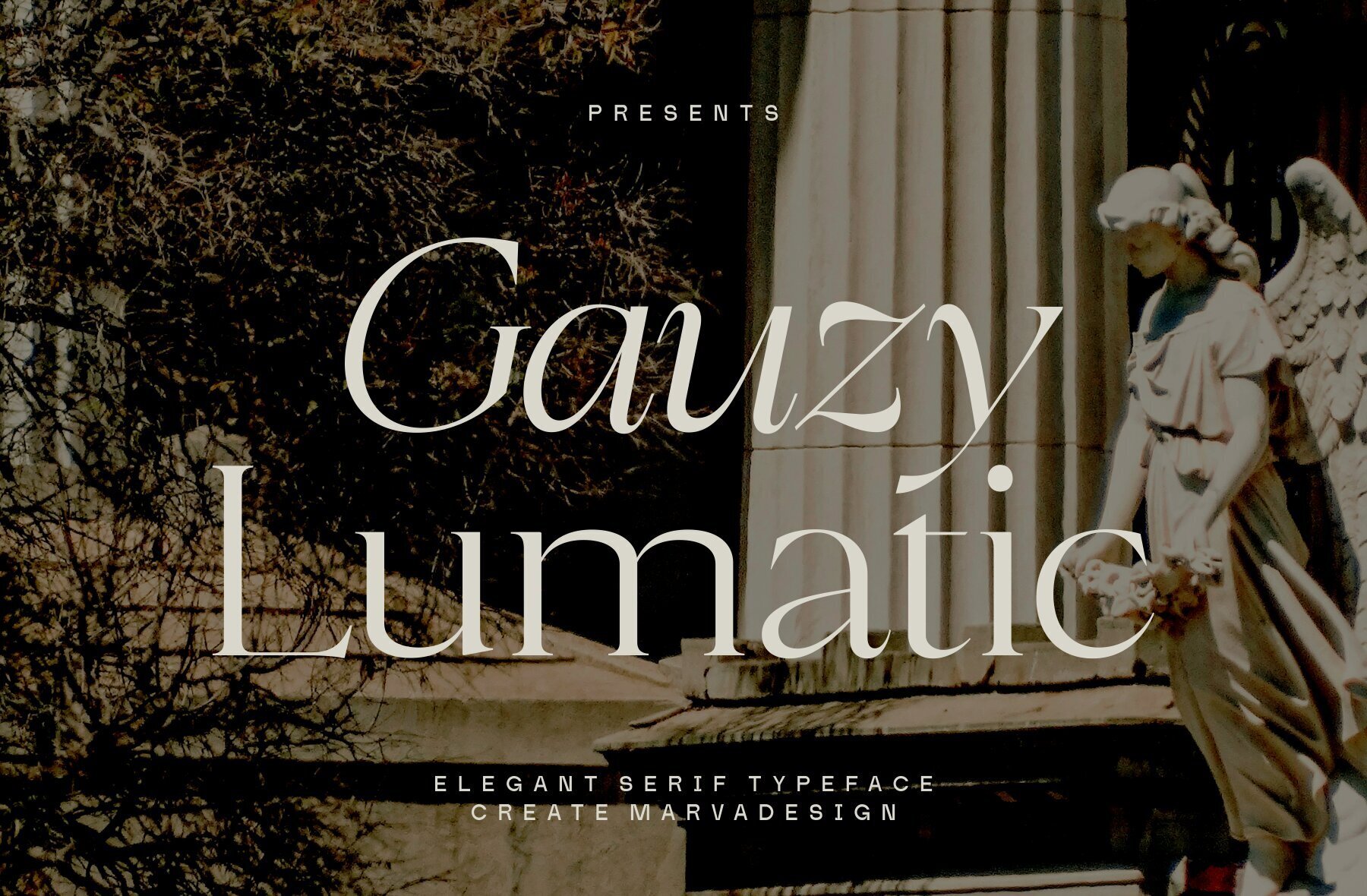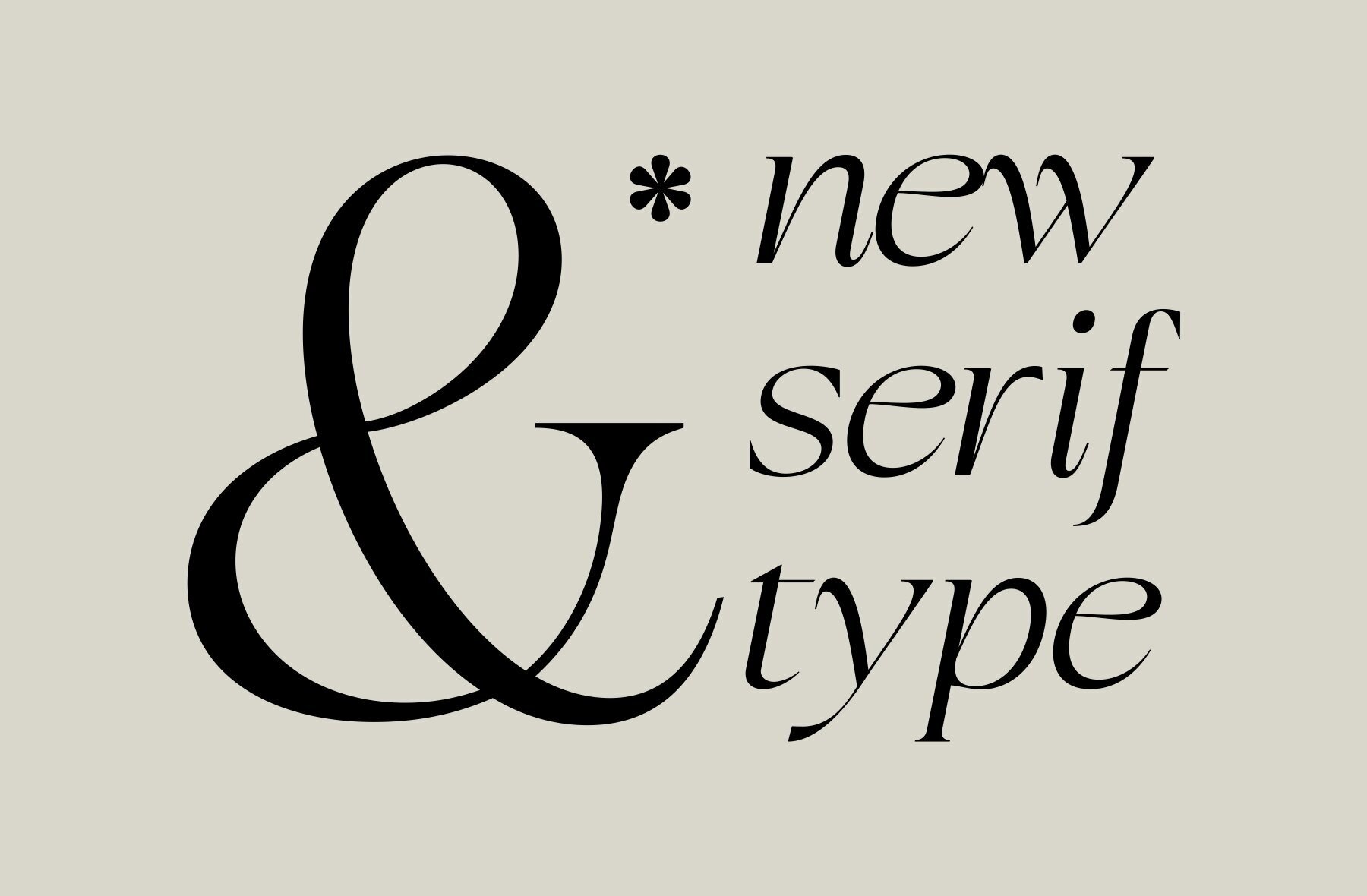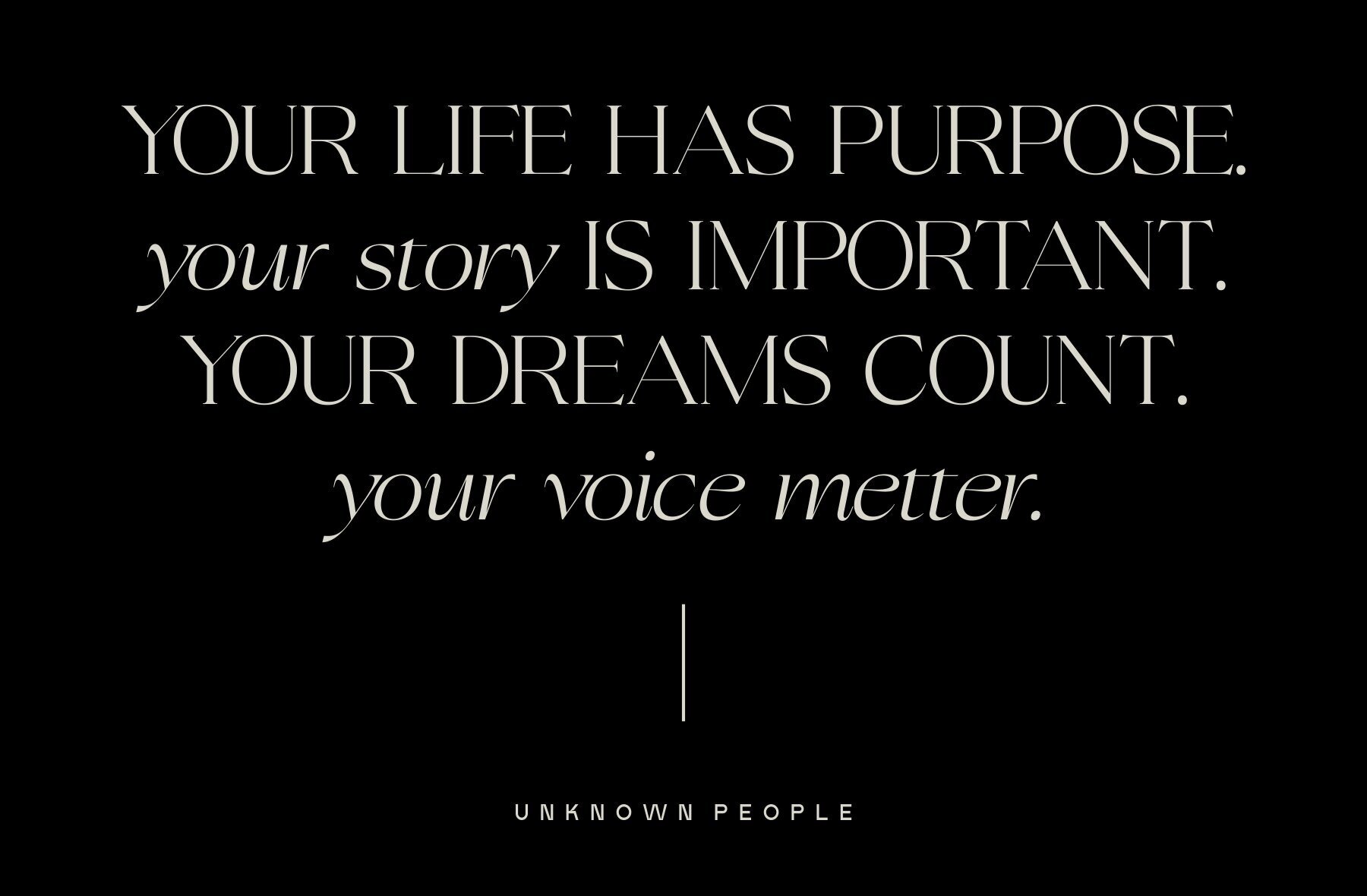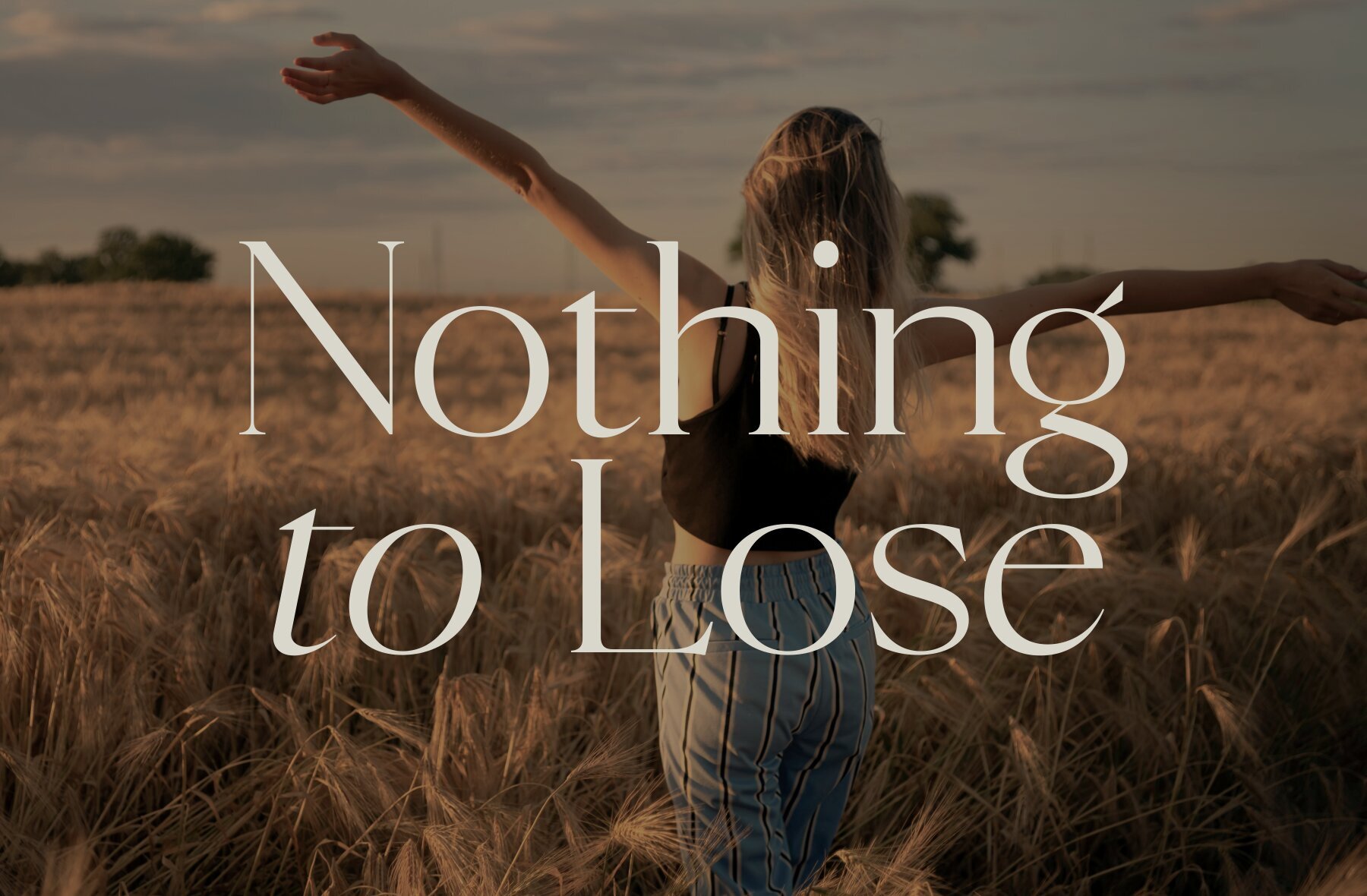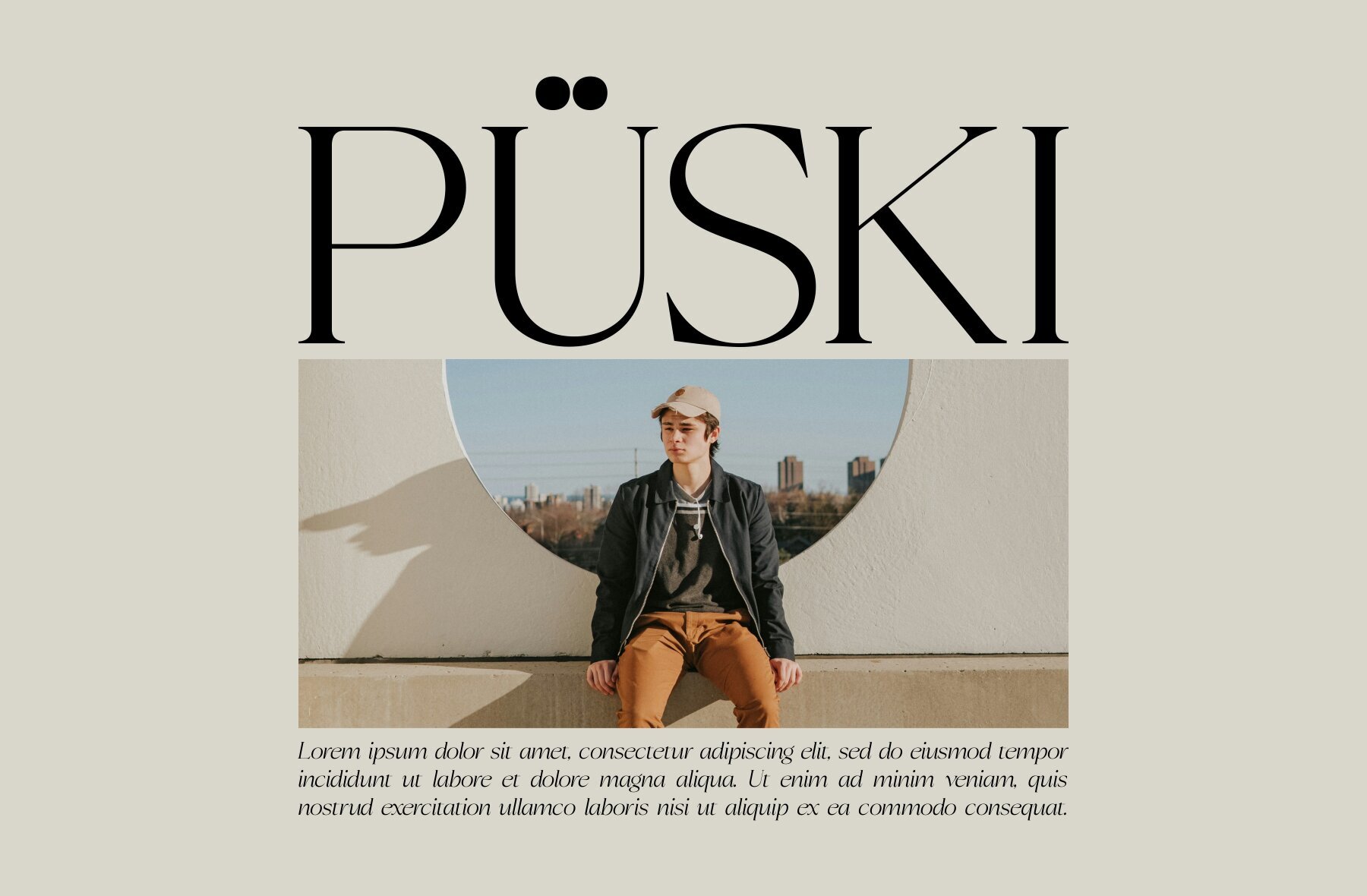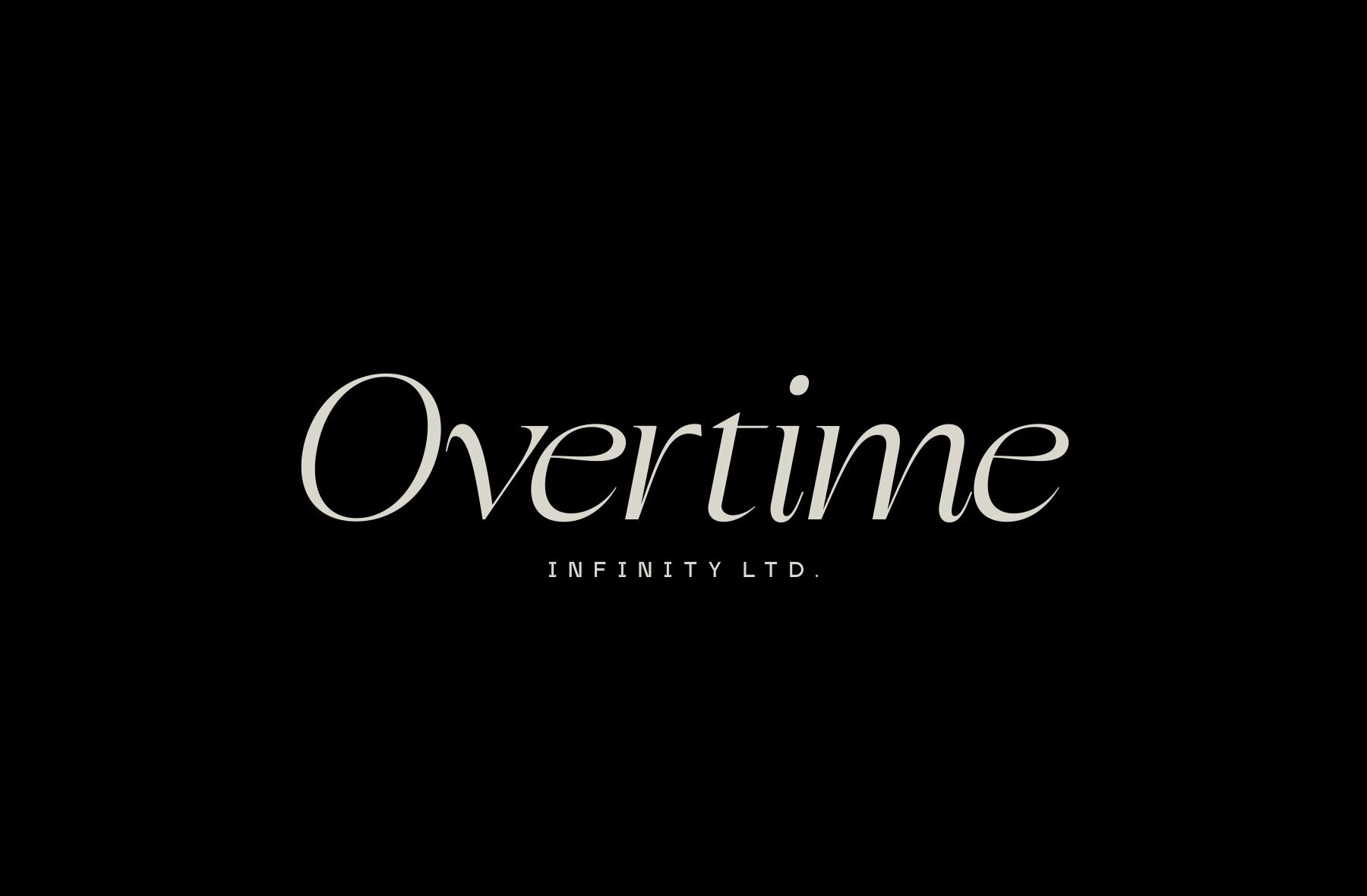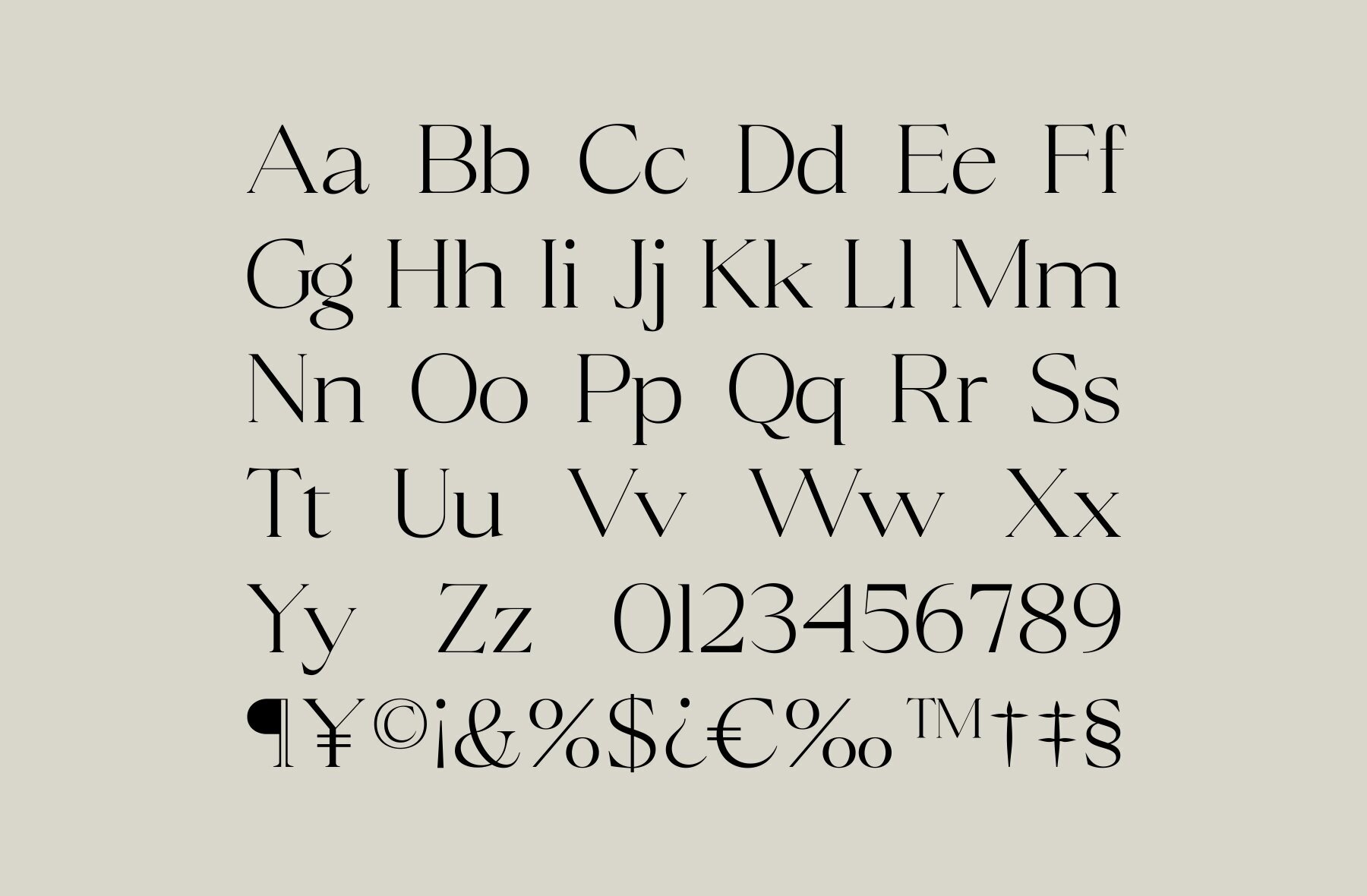
Gauzy Lumatic Font
The Gauzy Lumatic typeface showcases a high contrast between its thick and thin strokes, projecting both sophistication and elegance. This font offers two distinct styles, regular and italic, presenting smooth and flowing curves complemented by its sharp yet serene serifs. Such attributes bring a luxurious feel to any project. Ideal for editorial design, branding, fashion, and high-end packaging, Gauzy Lumatic adds an elegant uniqueness to these demanding visual contexts. Its classic yet contemporary style makes it a versatile option for high-end applications.Gauzy Lumatic: High Contrast Elegance